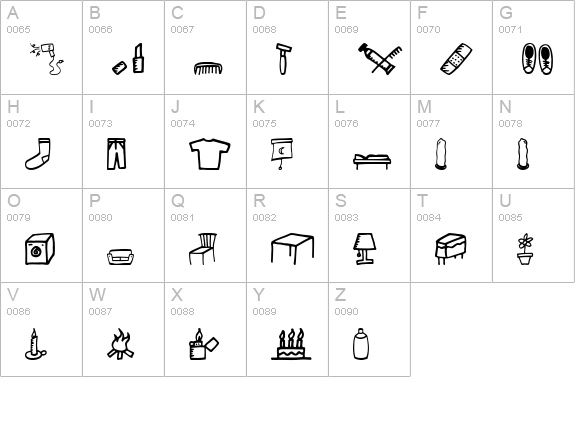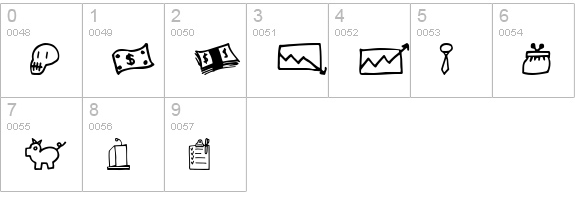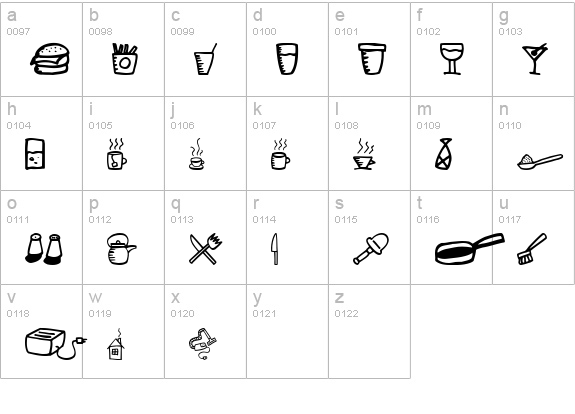
lindkvist1 Font Details
Lindkvist1 font is a stunning display typeface that exudes elegance and sophistication. Its sleek lines and intricate details make it perfect for adding a touch of class to any project. This font is not only visually appealing but also highly versatile, suitable for a wide range of design applications. The best part? Lindkvist1 font is free to download at FontsMarket.com, making it accessible to all designers and creatives looking to elevate their work with a touch of refinement. Don't miss out on the opportunity to add this exquisite font to your collection and bring a touch of luxury to your projects. Download Lindkvist1 font today and let your creativity shine!